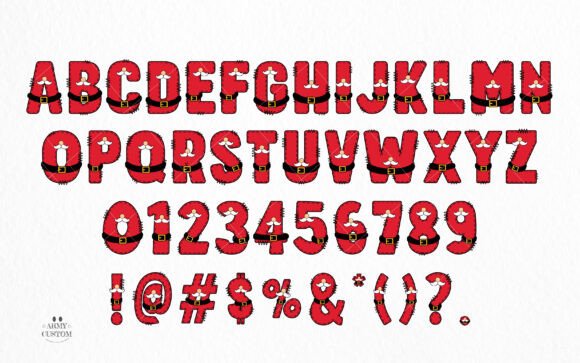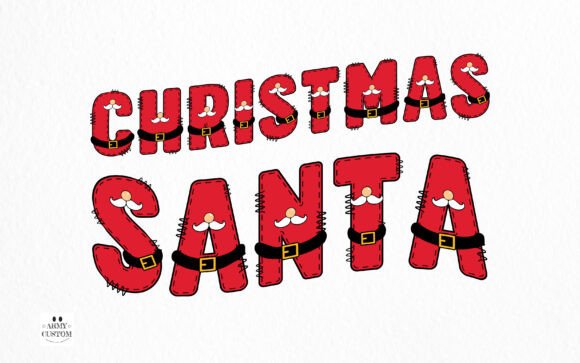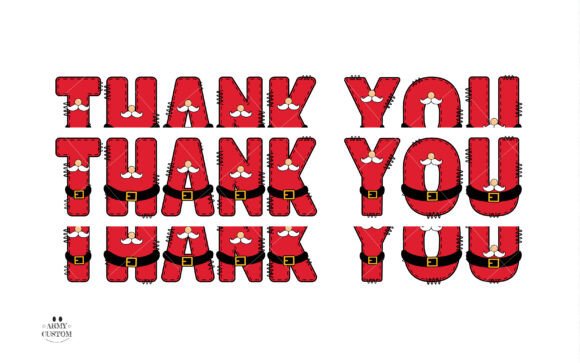
Introduction to Christmas Santa Army Font
As you sit at your desk, surrounded by festive lights and the sound of holiday music, you can’t help but feel the urge to create something special. Your imagination is sparked, and you’re eager to bring a dash of magic to your next creative project. It’s in moments like these that the right design resource can make all the difference. And that’s where the Christmas Santa Army Font comes in – a delightful, high-quality font that’s sure to add a touch of whimsy to your holiday designs.
This charming font is more than just a design element – it’s a way to tap into the joy and wonder of the holiday season. With its transparent background and free download option, it’s the perfect addition to any designer’s toolkit. Whether you’re working on a festive project or simply looking to add a dash of merriment to your designs, the Christmas Santa Army Font is a valuable resource that’s sure to bring a smile to your face.
Key Features of Christmas Santa Army Font
- Unique and festive design, perfect for creative projects related to Christmas and winter themes.
- High-quality font with a transparent background, ideal for use on various backgrounds and design elements.
- Perfect for creating a festive and fun atmosphere in designs, logos, and other creative projects.
Honest Review: Christmas Santa Army Font
I recently came across the Christmas Santa Army Font, and I must say it’s a great addition to any creative project. The font is well-designed, with a clear and modern look that’s perfect for winter-themed designs.
- ✨ High-quality design: The font is well-crafted and looks great on both light and dark backgrounds.
- ✨ Transparent background: This makes it easy to use with any design element, whether it’s a photo or a solid color.
- ⚠️ Limited character set: The font only includes a few special characters, which might be a limitation for some designers.
- ⚠️ Not suitable for all designs: While the font is great for winter-themed designs, it might not be the best choice for other types of projects.
Overall, I’m impressed with the Christmas Santa Army Font. It’s a great design resource that’s perfect for designers looking to add a festive touch to their projects. With a few limitations in mind, I would definitely recommend this font to anyone looking for a high-quality, free download.
Christmas Santa Army Font is a versatile design resource that can be used in a variety of creative projects, including holiday-themed designs, party invitations, and social media graphics. It’s also a great resource for designers looking to add a touch of whimsy and fun to their designs. With a free download available, you can get started with Christmas Santa Army Font today and start creating unique and eye-catching designs for your project.